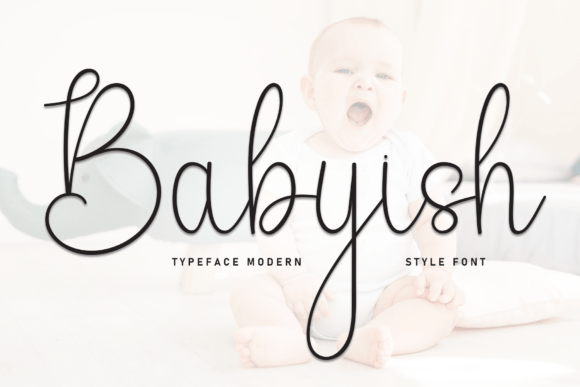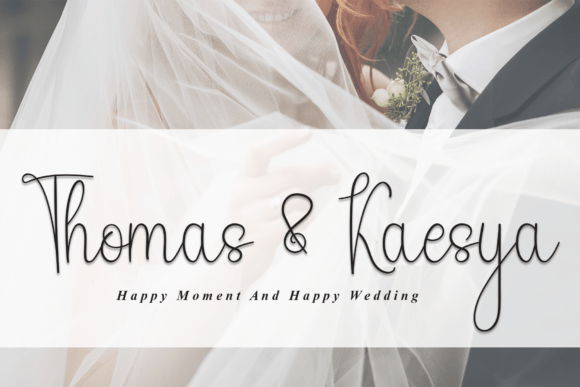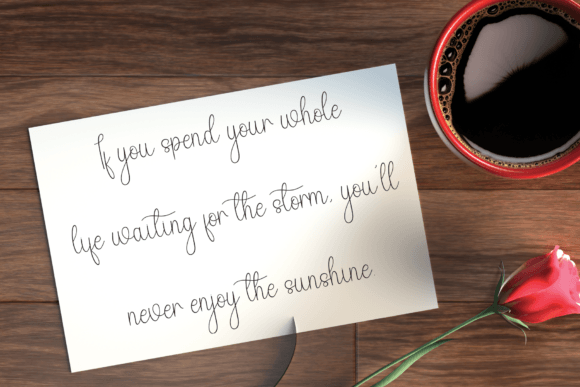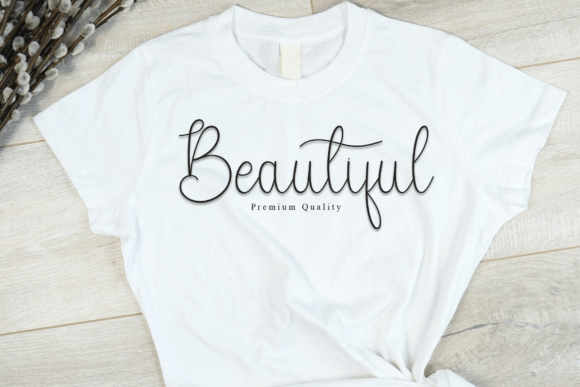
About the Babyish Font
Make a bold statement with Babyish Font, a powerful and memorable font. Babyish is a cute, thin script font with soft, playful letters. It’s perfect for designs that need a sweet, fun, and lighthearted feel. The flowing style gives it a friendly and welcoming look.
Babyish Font Usage Examples